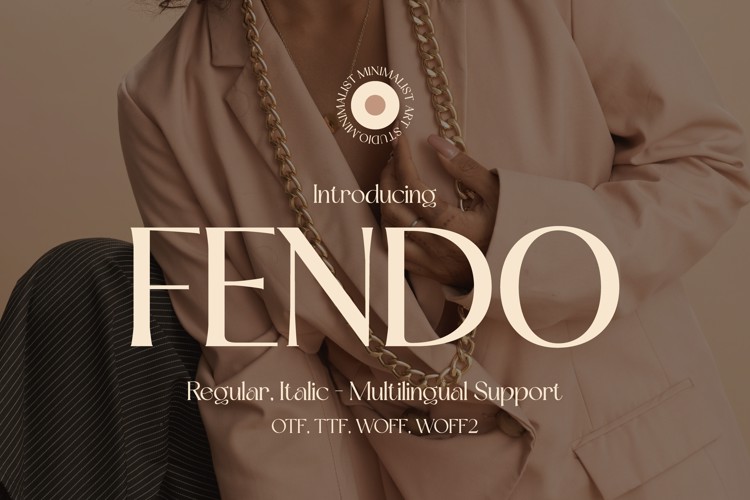
FENDO Font
๐จ Font Name: Fendo by Minimalist Art Studio
๐จ Font Description: Fendo is a modern sans serif with minimalist elegance and multilingual supportโperfect for fashion branding, editorial layouts, and luxury packaging.
โ Complete Latin set + multilingual diacritics
โ Alternates, stylistic sets & ligatures
โ Numbers, small caps, and extended punctuation
โ Bonus italics and family styles